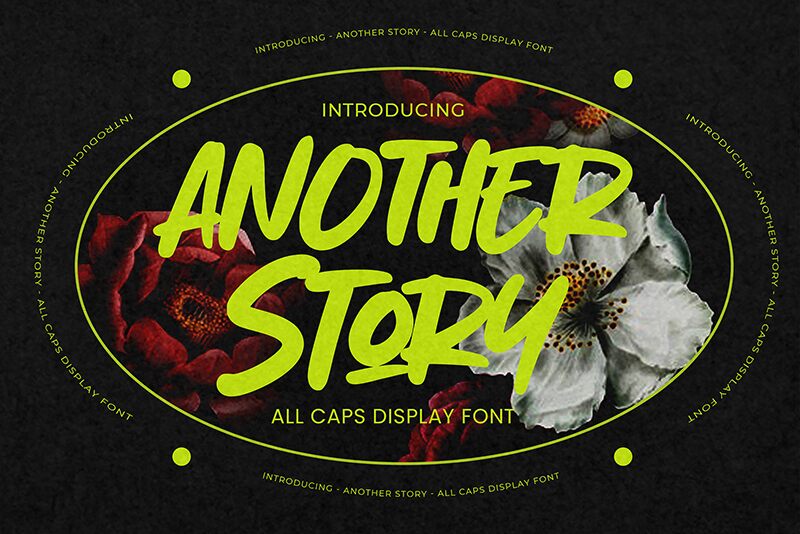
Another Story
Another Story, crafted by the inventive minds at Gassstype, stands as a testament to the artistry of modern handwritten typography. This all caps display font marries casual quick-stroke handwriting with a dramatic flair, creating an authentic and spirited aesthetic. It's not just a font; it's a personality that imbues every word with life, making it an ideal choice for projects seeking to combine modern style with the charm and immediacy of hand-lettering.
With its textured finish and unique characteristics, Another Story adds a touch of natural elegance to any creative work. Whether you're designing catchy labels, compelling posters or looking to inject authenticity into your branding efforts – this font is versatile enough to handle it all with aplomb. From greeting cards to websites and beyond, its suitability for an array of mediums is boundless.
Moreover, delve deeper into its typographic offerings by activating Ligatures in the OpenType panel-an added bonus for designers seeking that extra layer of sophistication in their projects. Another Story isn't just another font; it's your next chapter in design brilliance.